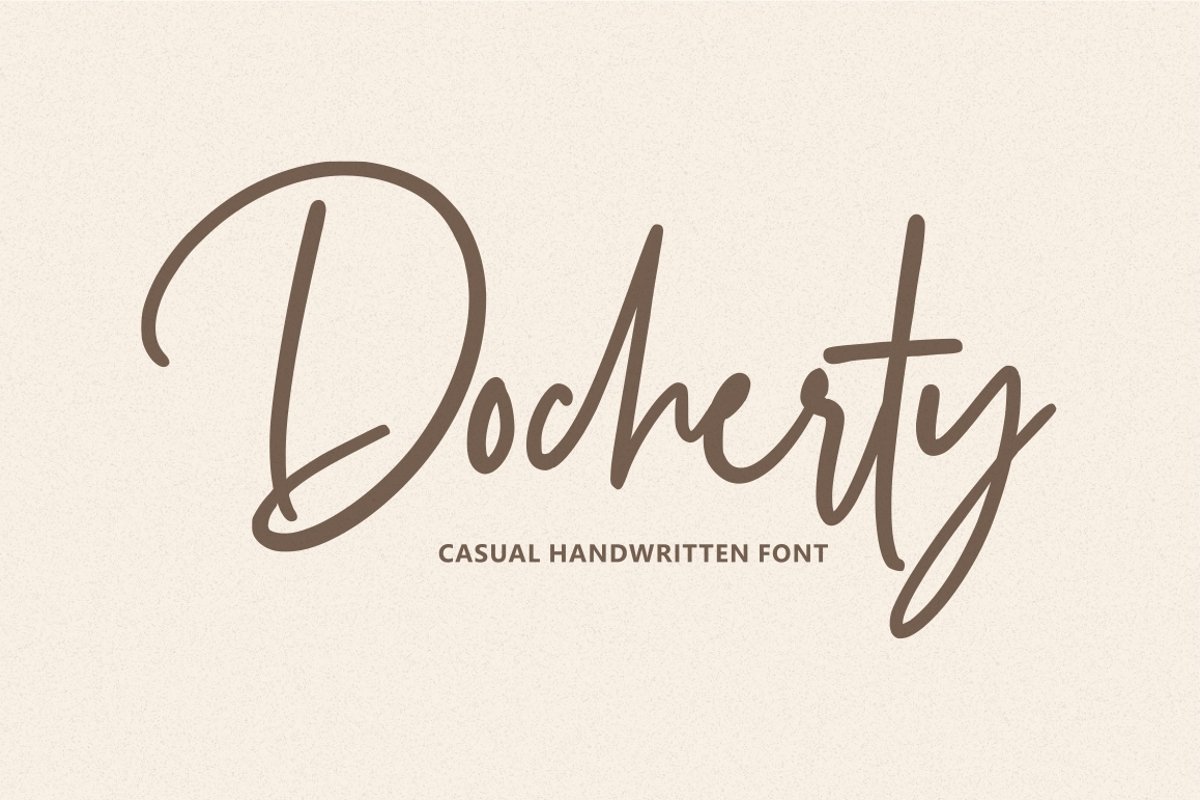
Docherty - Casual Signature Font
Docherty - Casual Signature Font is a modern signature font. Perfect for logo, invitation, stationery, wedding designs, social media posts, advertisements, product packaging, product designs, label, photography, watermark, special events or anything. This font include : Docherty OTF-TTF-WOFF, more than 50+ Ligatures, and also Multilingual support.
More than 50+ Ligatures
- Very great for branding, logotype, handletteing, invitations, or fashion branding.